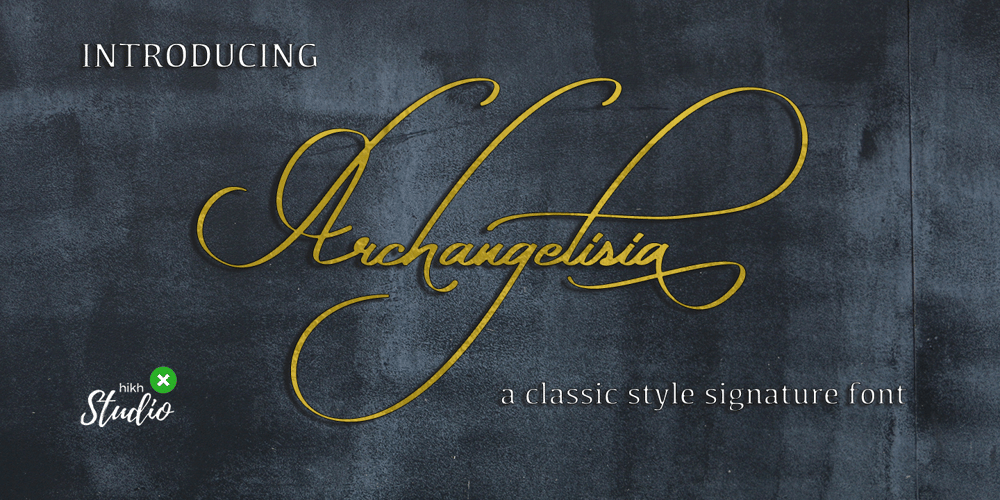
Archangelisia Font Family was designed by Hajid Hikmatiyar and published by Hikhcreative. Archangelisia contains 1 styles and family package options. Archangelisia is a beauty and modist script font. It offers support for all characters of the English languange. Standard punctuation glyphs are included. Archangelisia is perfectly suited for signature style, your logo, communicating your branding, inspirational wall poster, title, label or your wedding invitation. Great for crafters and grapich artist alike. Compatible with tools such as Photoshop or Illustrator, etc.